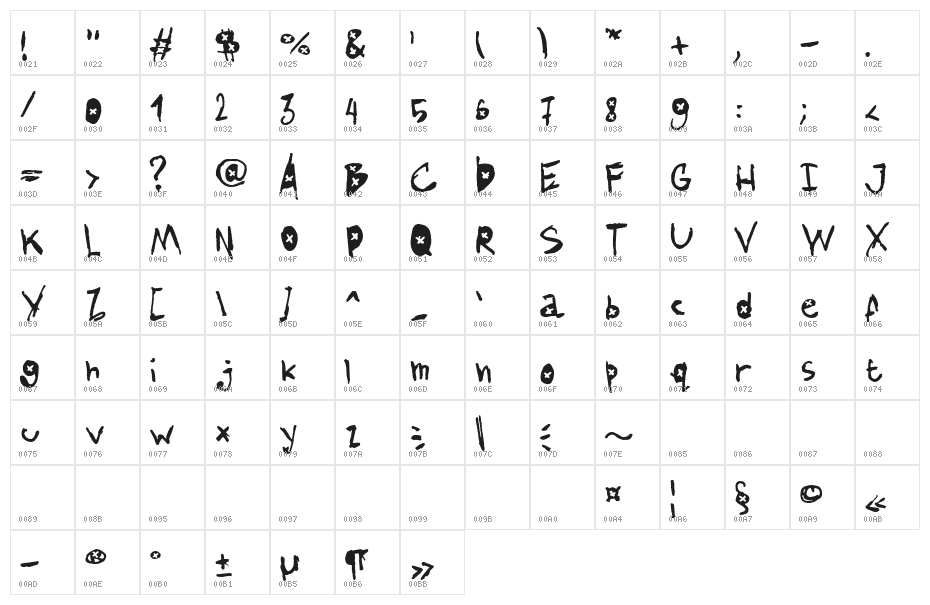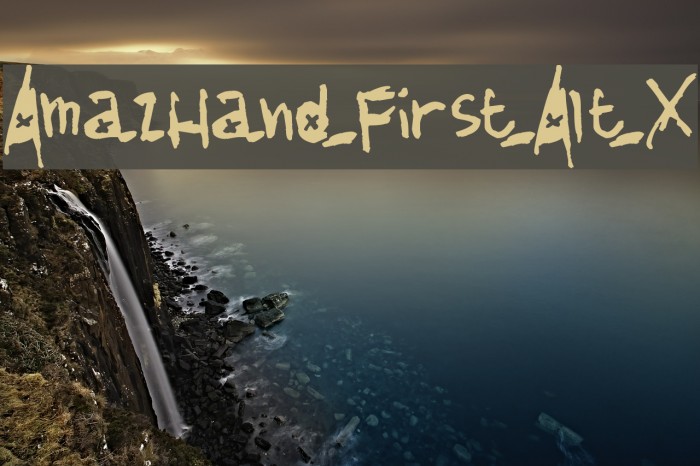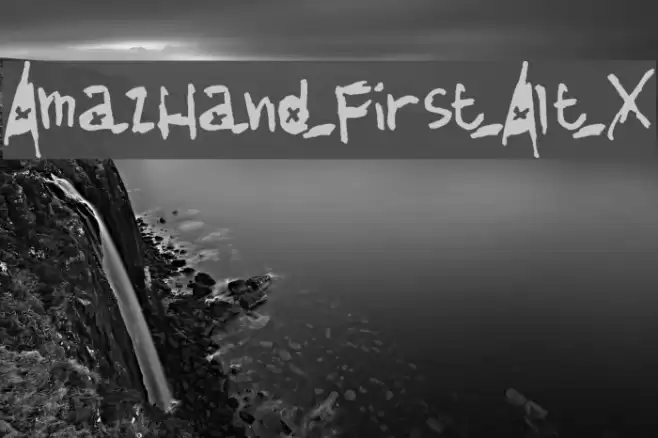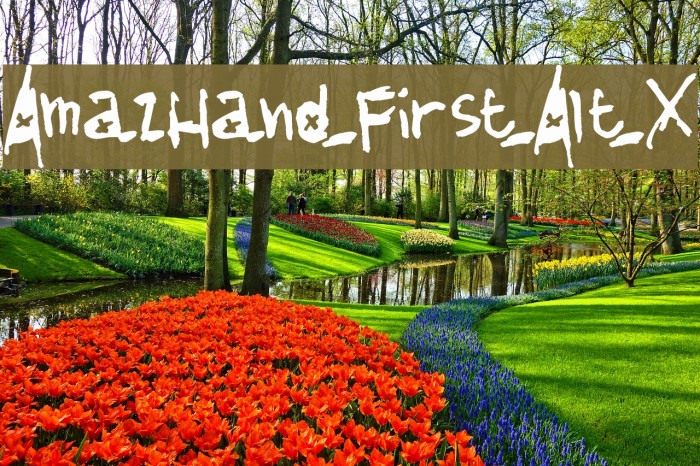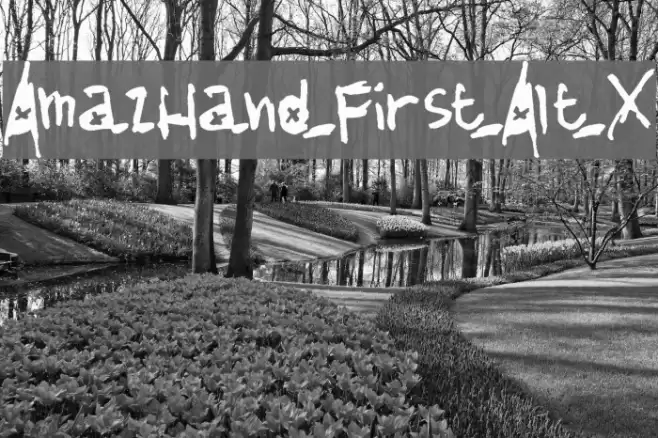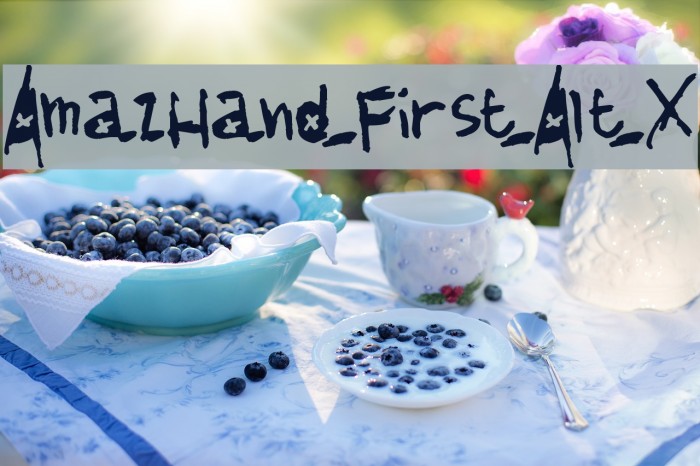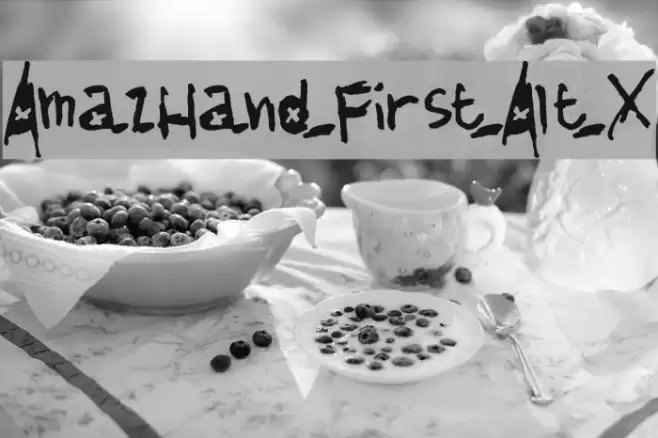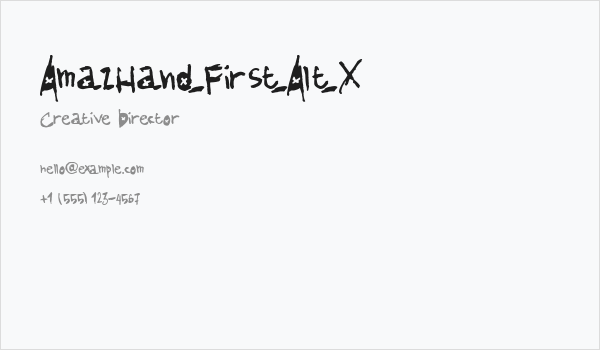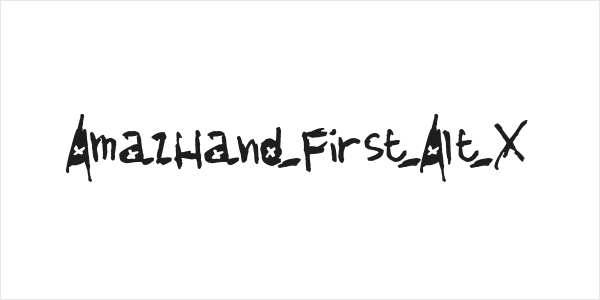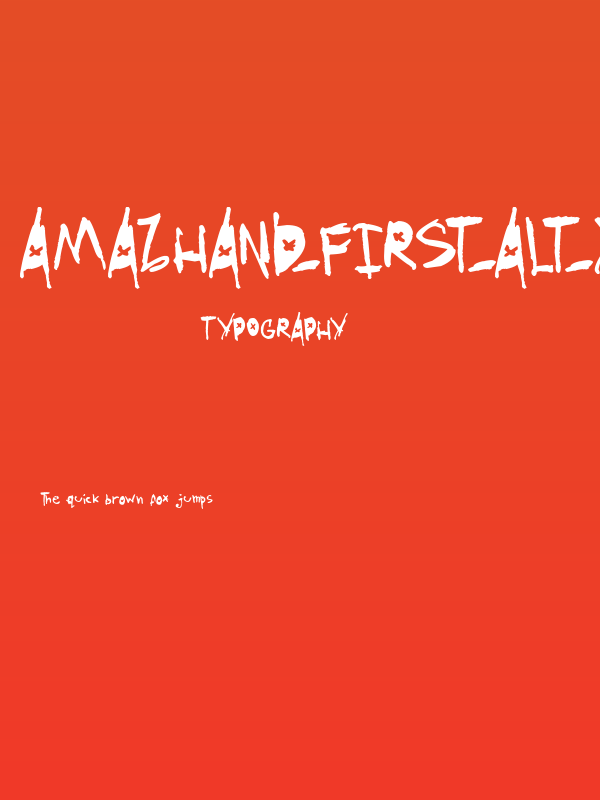
AmazHand_First_Alt_X Font
AmazHand_First_Alt_X Description
This font features a bold and expressive handwritten style, characterized by its irregular and dynamic strokes. The letters have a playful and artistic appearance, with a rough texture that adds a sense of spontaneity and creativity. The uppercase and lowercase letters maintain a consistent style, while the numbers and special characters integrate seamlessly with the overall design. The font's unique aesthetic makes it stand out, offering a visually engaging experience that captures attention and conveys a sense of individuality.
| Proposed Projects | Ideal for creative projects such as posters, album covers, and artistic branding. It can also be used for personal projects like scrapbooking or custom invitations. |